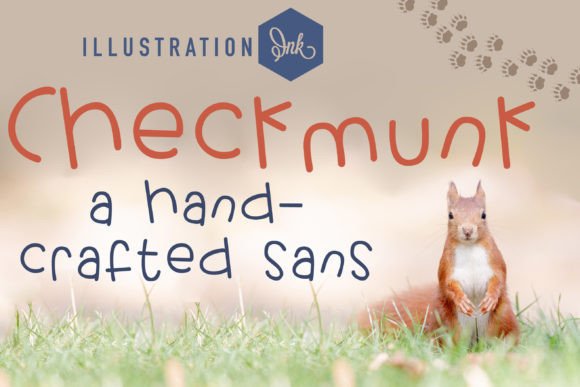
Introducing Checkmunk Font: A Hand-Crafted Sans Serif for Creative Projects
In the world of typography, fonts play a crucial role in conveying the tone and personality of a design. For crafters, designers, and DIY enthusiasts, finding the perfect font can make all the difference in creating visually appealing and engaging projects. One such font that has gained popularity in recent times is the Checkmunk Font, a hand-crafted sans serif font that exudes a fun and whimsical vibe.
A hand-crafted font is a typeface that is designed to mimic the look of handwriting. It’s a font that is created to look like it was written by hand, with all the imperfections and quirks that come with it. Hand-crafted fonts are often used for creative projects such as invitations, greeting cards, posters, and other items where a personal touch is desired.
Handwritten fonts can be either formal or informal, depending on the style and design. They can range from elegant and sophisticated to playful and whimsical. In the case of Checkmunk Font, it’s a fun and youthful sans serif font that adds a touch of playfulness to any design.
Characteristics of Checkmunk Font
Checkmunk Font is a unique and charming hand-crafted sans serif font that boasts a range of characteristics that make it perfect for creative projects. Some of its notable features include:
• Hand-crafted look: Checkmunk Font has a distinct hand-crafted look that gives it a personal and human touch.
• Fun and whimsical: The font has a playful and youthful vibe that’s perfect for designs that require a touch of whimsy.
• Sans serif: Checkmunk Font is a sans serif font, which means it doesn’t have serifs or small lines at the end of the letters.
• Toggle throughout: The font features a little toggle throughout, which adds to its playful and hand-crafted look.
Uses of Checkmunk Font
Checkmunk Font is a versatile font that can be used for a range of creative projects. Some of the ways you can use this font include:
• Invitations: Checkmunk Font is perfect for creating invitations for parties, weddings, and other events.
• Greeting cards: The font’s playful and whimsical vibe makes it ideal for creating greeting cards for special occasions.
• Posters and flyers: Checkmunk Font can be used to create eye-catching posters and flyers for events, promotions, and products.
• DIY projects: The font is perfect for crafters and DIY enthusiasts who want to add a personal touch to their projects.
Tips for Using Checkmunk Font
To get the most out of Checkmunk Font, here are some tips to keep in mind:
• Use it for headings: Checkmunk Font is perfect for headings and titles, where its playful and whimsical vibe can shine.
• Pair it with other fonts: You can pair Checkmunk Font with other fonts to create a unique and interesting contrast.
• Experiment with colors: The font looks great in a range of colors, so don’t be afraid to experiment and find the perfect hue for your design.
Checkmunk Font is a unique and charming hand-crafted sans serif font that’s perfect for creative projects. Its fun and whimsical vibe makes it ideal for designs that require a touch of playfulness and personality. Whether you’re a designer, crafter, or DIY enthusiast, Checkmunk Font is a great addition to your font collection.